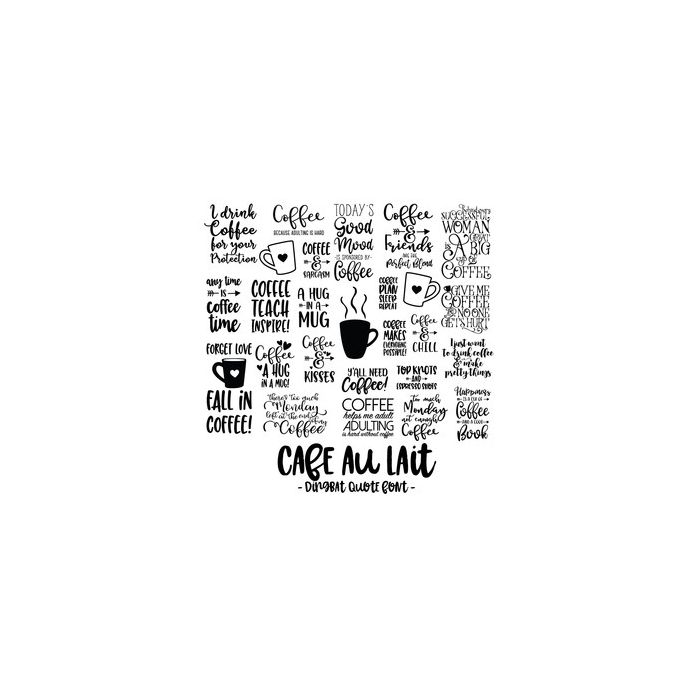
Cafe Au Lait Coffee Quote Dingbat Font. Includes 26 coffee quotes, perfect for planners, wall art, word art, vinyl, scrapbooking, gifts and more!. All are assigned to an upper case letter starting with 'A' or can be accessed via glyphs. For more design ideas, coordinating designs & products and inspiration, please visit my blog http://www.sarahhurleyblog.com